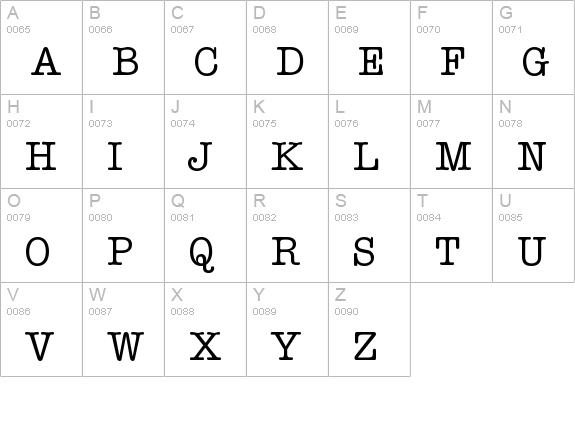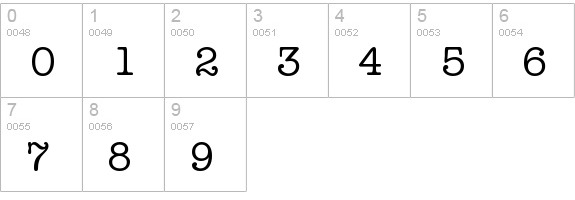
Typist Regular Font Details
Typist Regular is the standard, neutral variant in the Typist typeface family \xE2\x80\x94 well suited to general body text, paragraphs, and standard typographic work.
Introducing Typist Regular font, a versatile and stylish typeface that combines modern elegance with classic charm. This font is perfect for a wide range of design projects, from branding and logo design to invitations and headlines. With its clean and legible letterforms, Typist Regular adds a touch of sophistication to any text. One of the best things about Typist Regular font is that it is completely free to download. Yes, you read that right! You can easily obtain this amazing font without spending a single penny. It is available for free exclusively at FontsMarket.com, a trusted source for high-quality fonts. Whether you are a professional designer or a casual enthusiast, Typist Regular font offers endless possibilities for your creative endeavors. Its sleek and modern look is perfect for contemporary designs, while its timeless appeal adds a touch of nostalgia to your projects. The well-balanced and carefully crafted letterforms of Typist Regular make it highly legible, even in small sizes. This means that you can use it for both print and digital designs without compromising readability. From elegant business cards to eye-catching website headers, this font will make your text stand out. The versatility of Typist Regular font extends to its extensive character set, which includes uppercase and lowercase letters, numerals, punctuation marks, and special characters. This ensures that you have all the tools you need to express your creativity and bring your ideas to life. So, why wait? Start using Typist Regular font today and elevate your designs to a whole new level. Remember, this font is freely available to download at FontsMarket.com. Don't miss out on this incredible opportunity to enhance your projects with a font that combines style, elegance, and affordability.